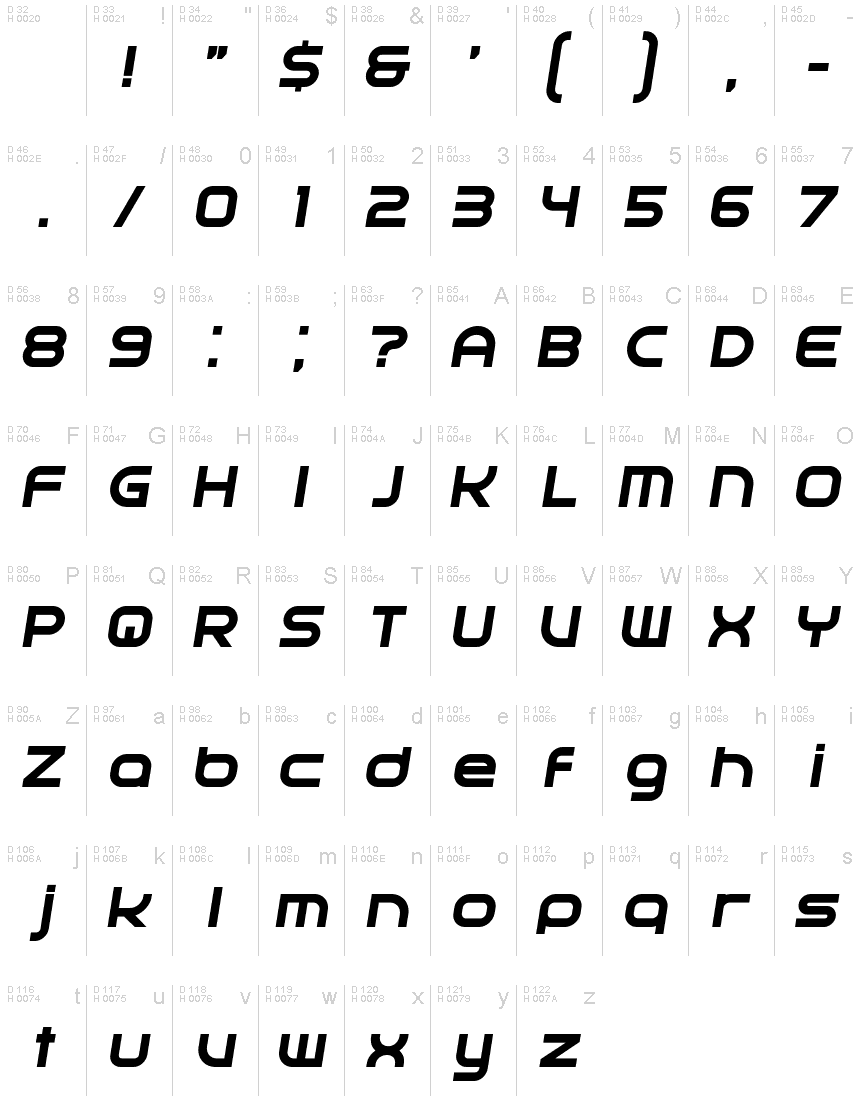
Essen Bold Italic
Introducing Essen Bold Italic – a modern, wide sans serif typeface designed by Vladimir Nikolic. This bold font is perfect for making headlines, logos and other creative projects that require a strong and confident style.